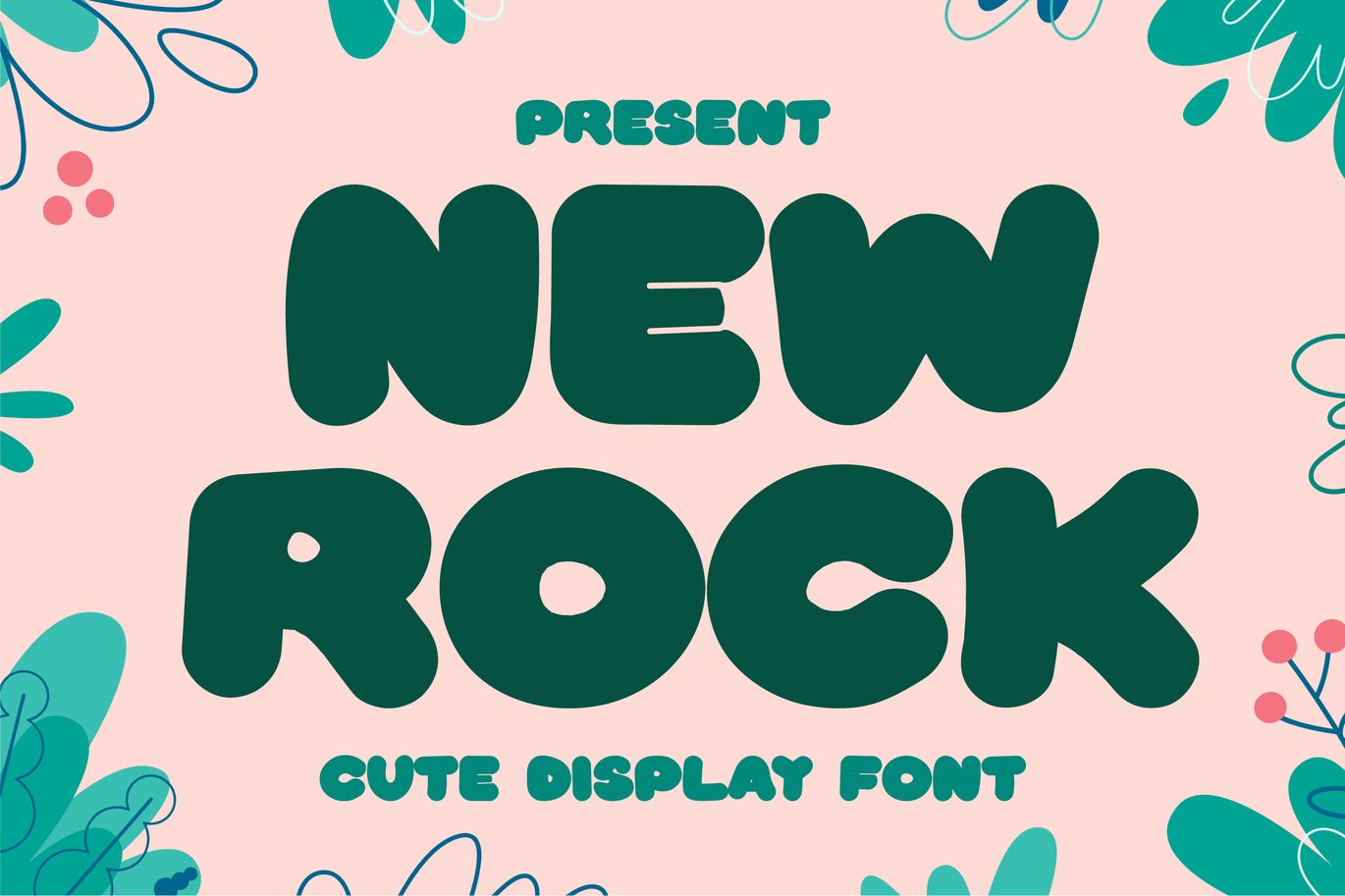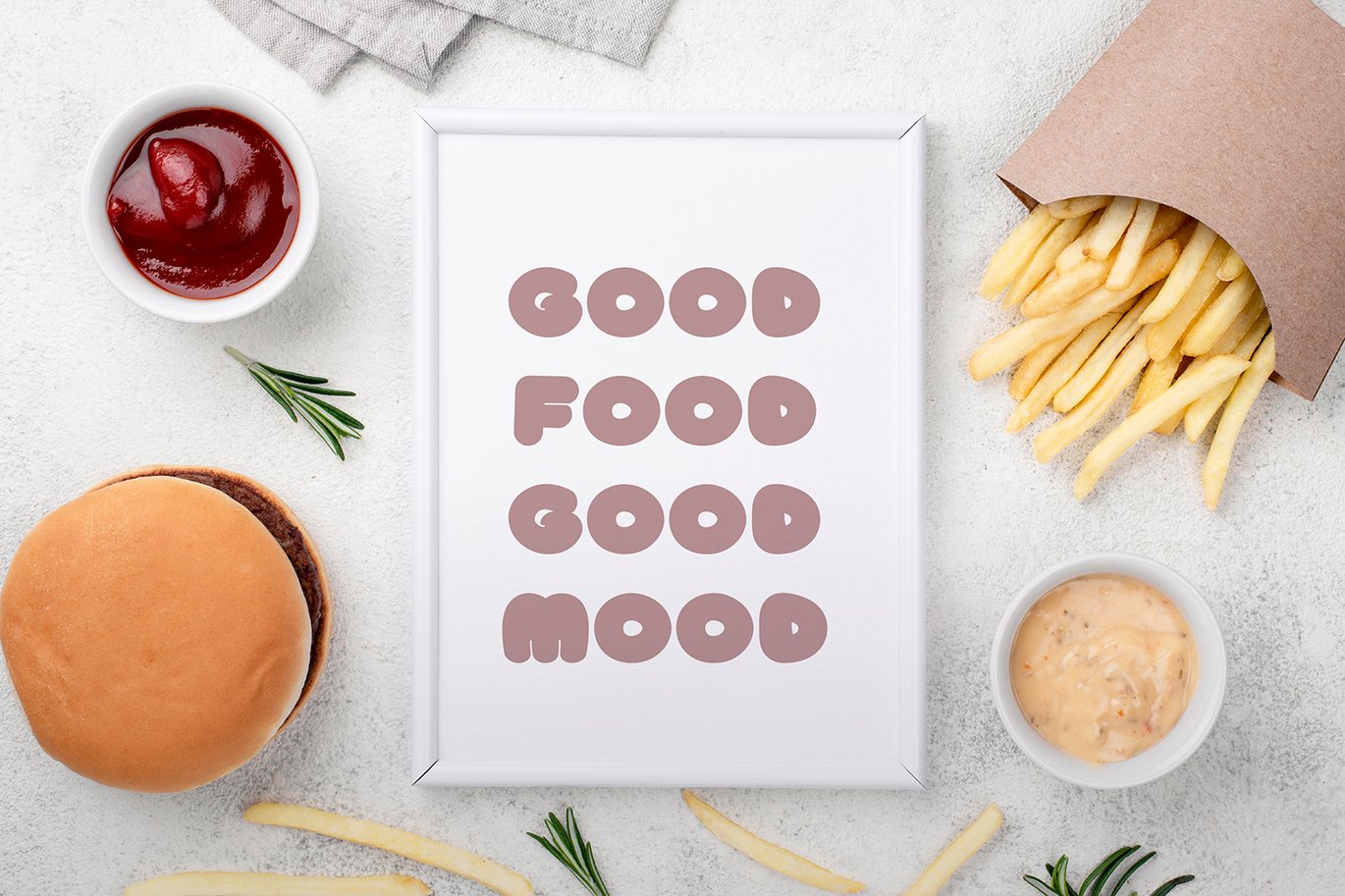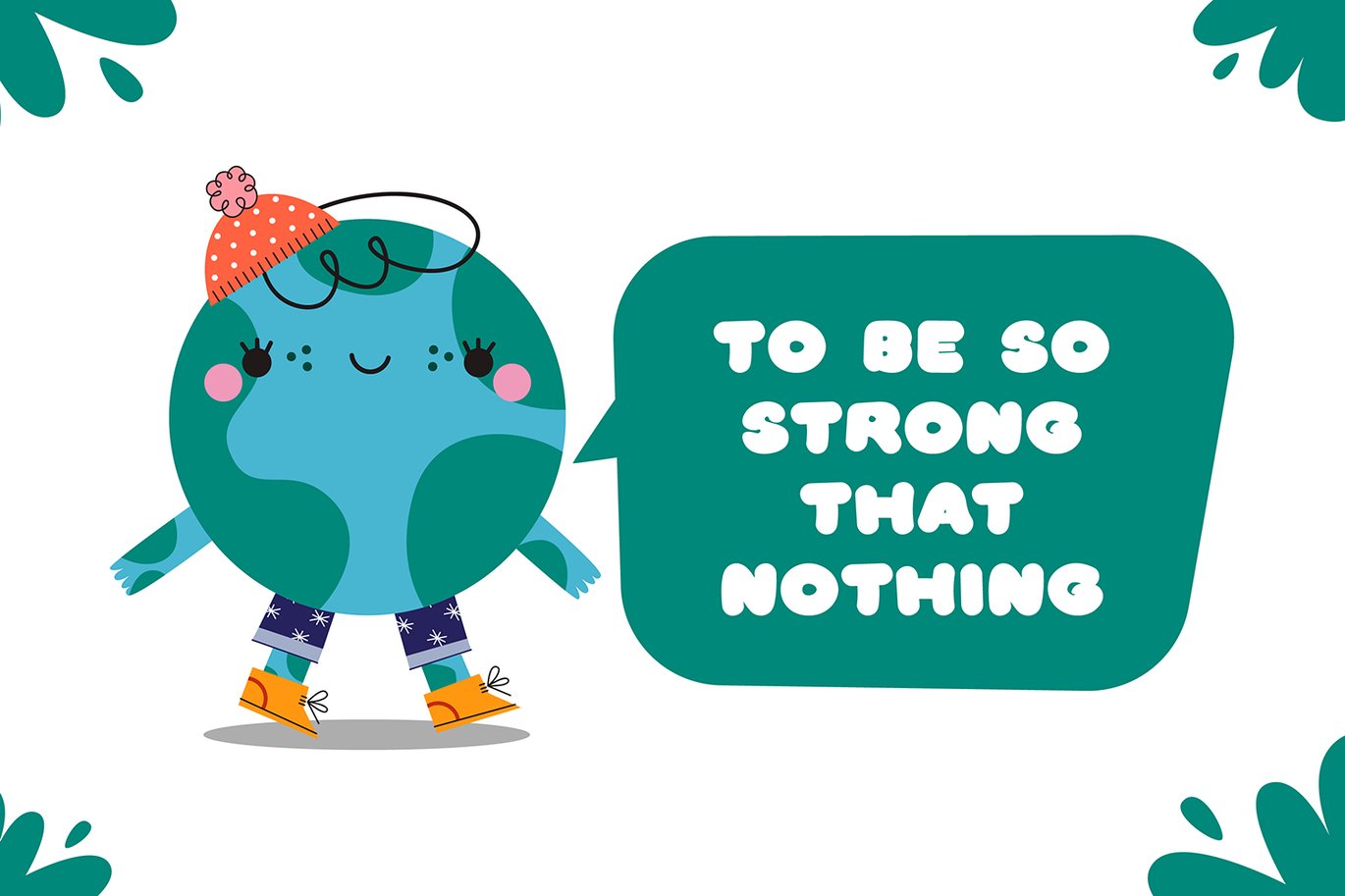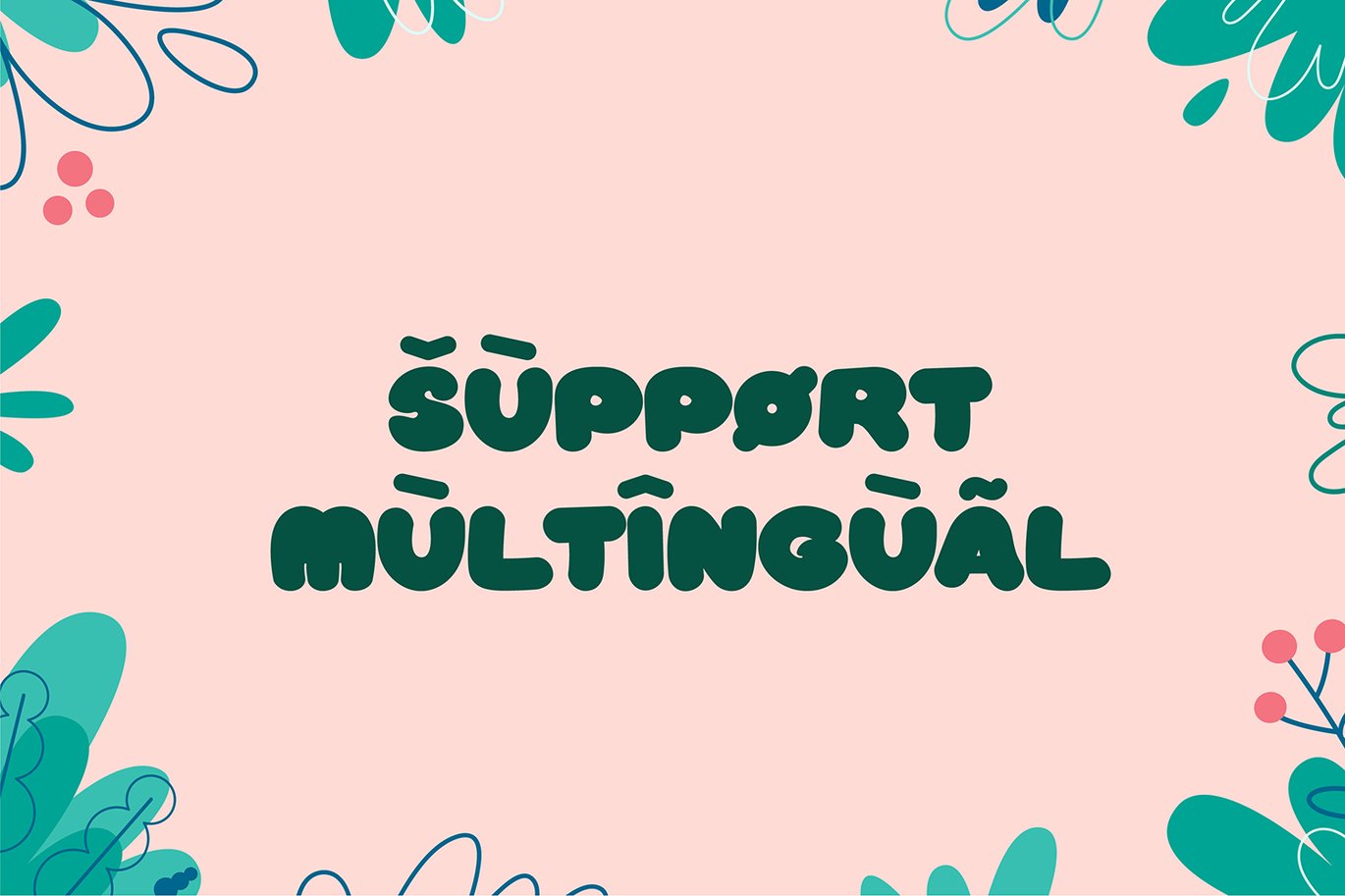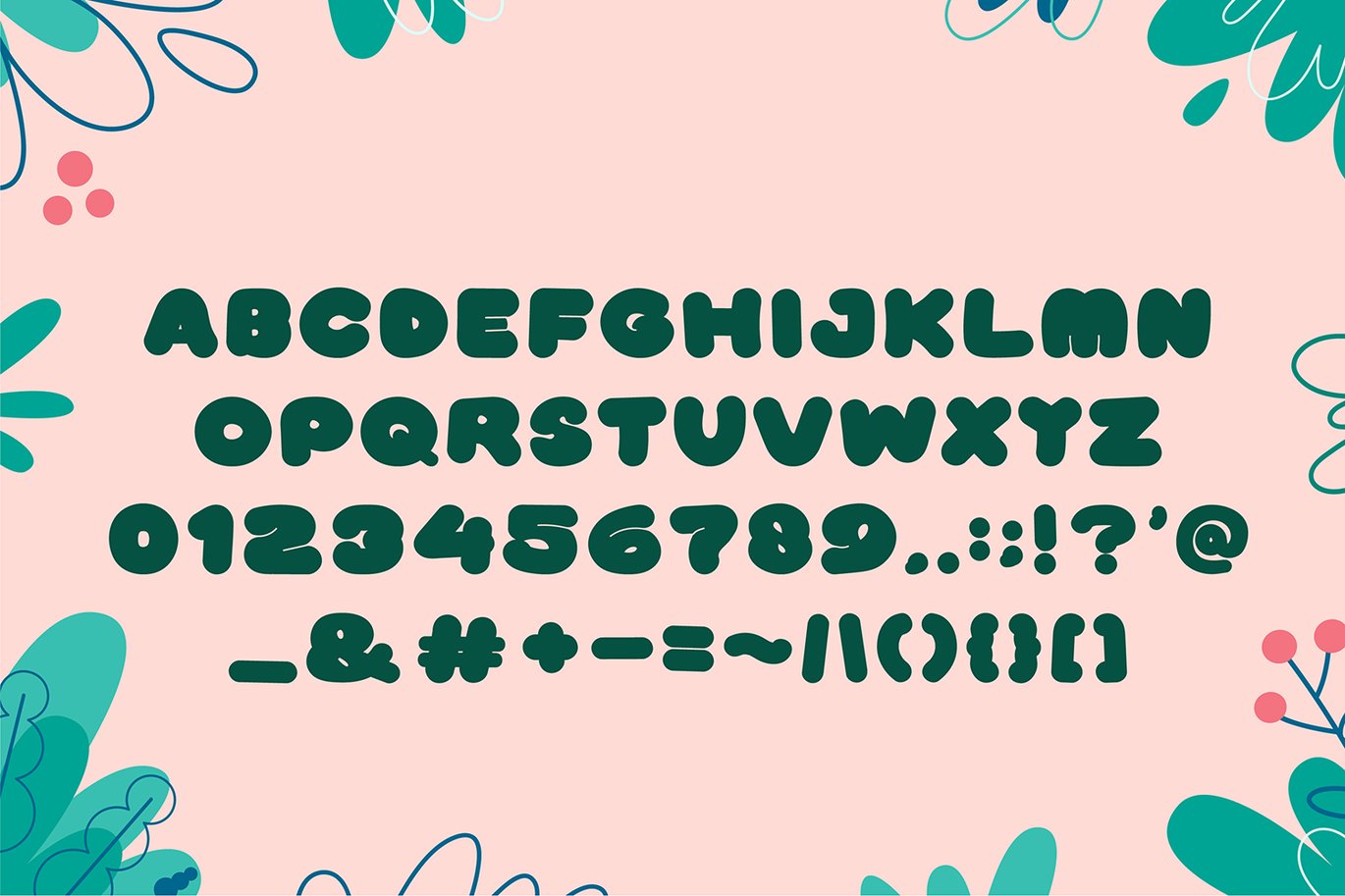
New Rock – Bold Display Font
Introducing New Rock – Bold Display Font
New Rock is a thick lettered and vintage display font. No matter the topic, this font will be an incredibly asset to your fonts’ library, as it has the potential to elevate any creation.